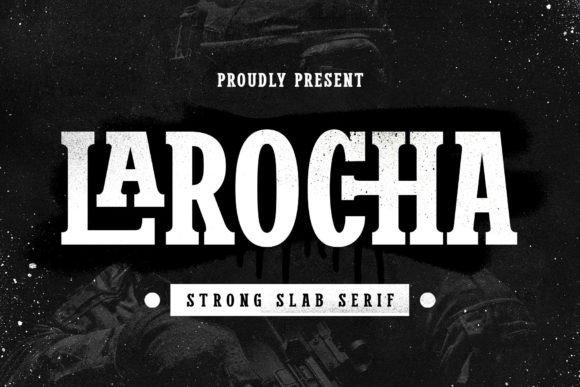
Introducing Larocha Font, the ultimate choice for anyone seeking the best font for ebook titles. Created by the talented Arterfak Project, Larocha is a font that effortlessly combines elegance and versatility to bring your projects to life. With its stunning slab serif design and a range of styles, this font is guaranteed to captivate and inspire.
Are you looking to add a touch of vintage charm to your logo, title, or quote? Look no further than Larocha's regular style. Its timeless appeal and classic aesthetic make it the perfect choice for creating a nostalgic atmosphere. Let your designs transport your audience to a bygone era with this exquisite font.
But that's not all – Larocha also offers a unique stencil style that is perfect for signage, labels, and posters. Add a touch of modernity and edginess to your designs with this bold and eye-catching variation. Stand out from the crowd and make a statement with Larocha's stencil style.
The versatility of Larocha knows no bounds. This font is suitable for a wide range of themes, including sports, military, and vintage. Whatever your project may be, Larocha will effortlessly adapt and enhance your vision. Let your creativity run wild and explore the endless possibilities this font has to offer.
What truly sets Larocha apart is its ability to customize and personalize your designs. With its alternates and ligatures, you can add a unique touch to your work, making it truly one-of-a-kind. Stand out from the competition and showcase your creativity with the endless customization options Larocha provides.
Whether you're working on a logo, poster, ebook title, or any other design project, Larocha is the perfect font to elevate your work to new heights. Its elegance, versatility, and customization options make it a must-have for any designer or creative professional.